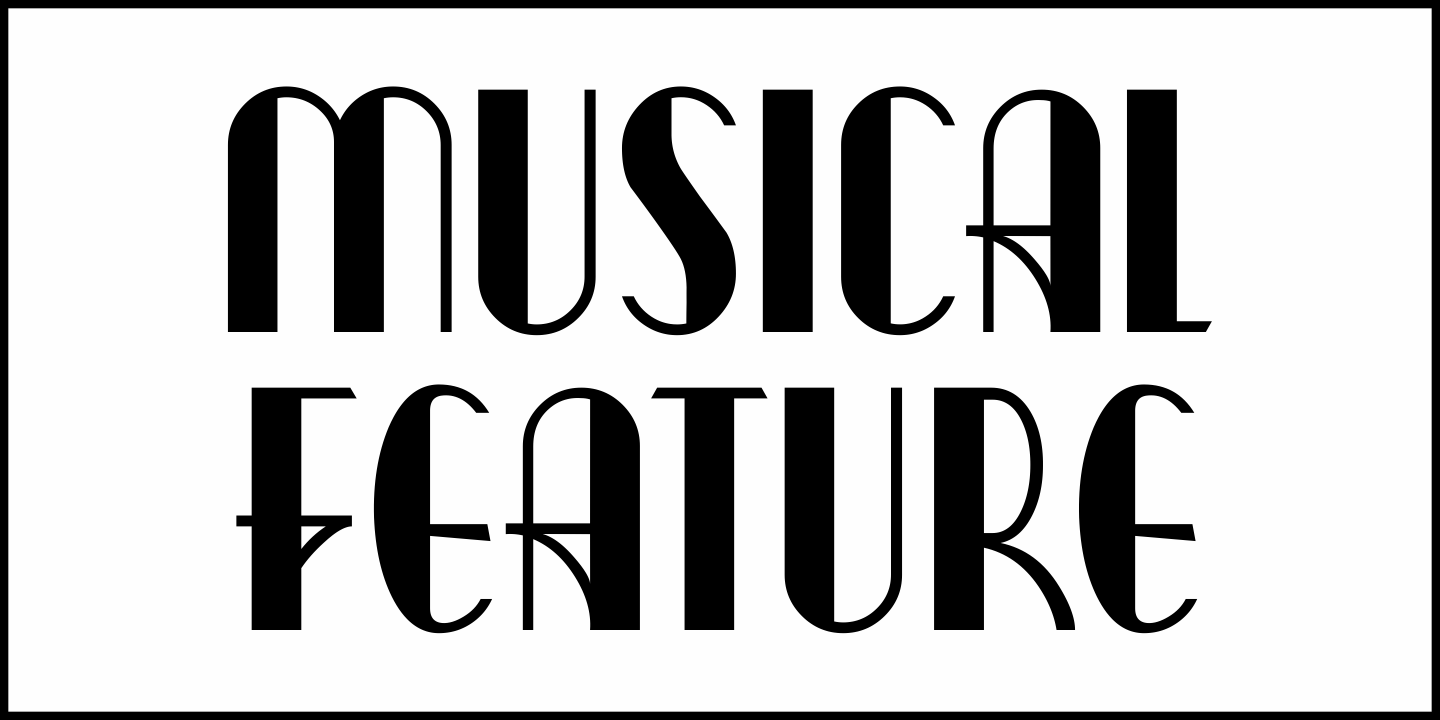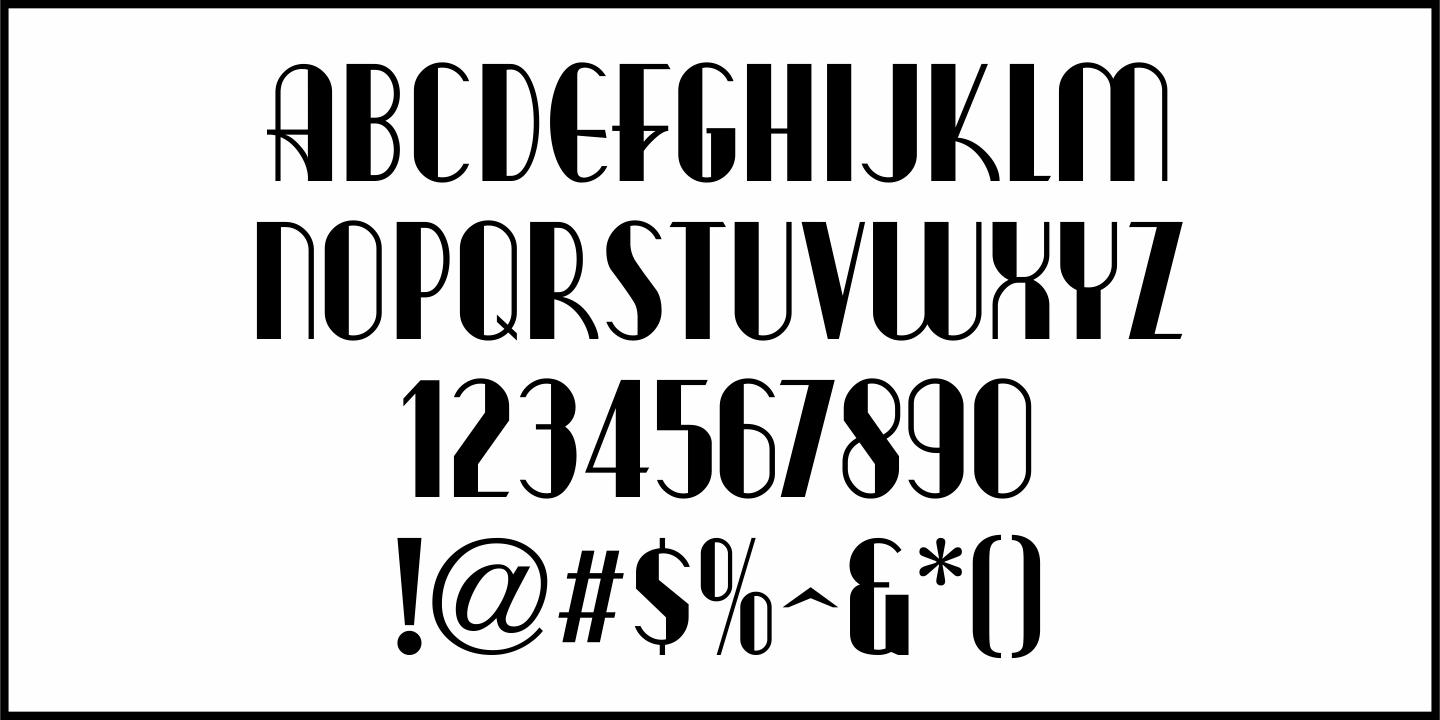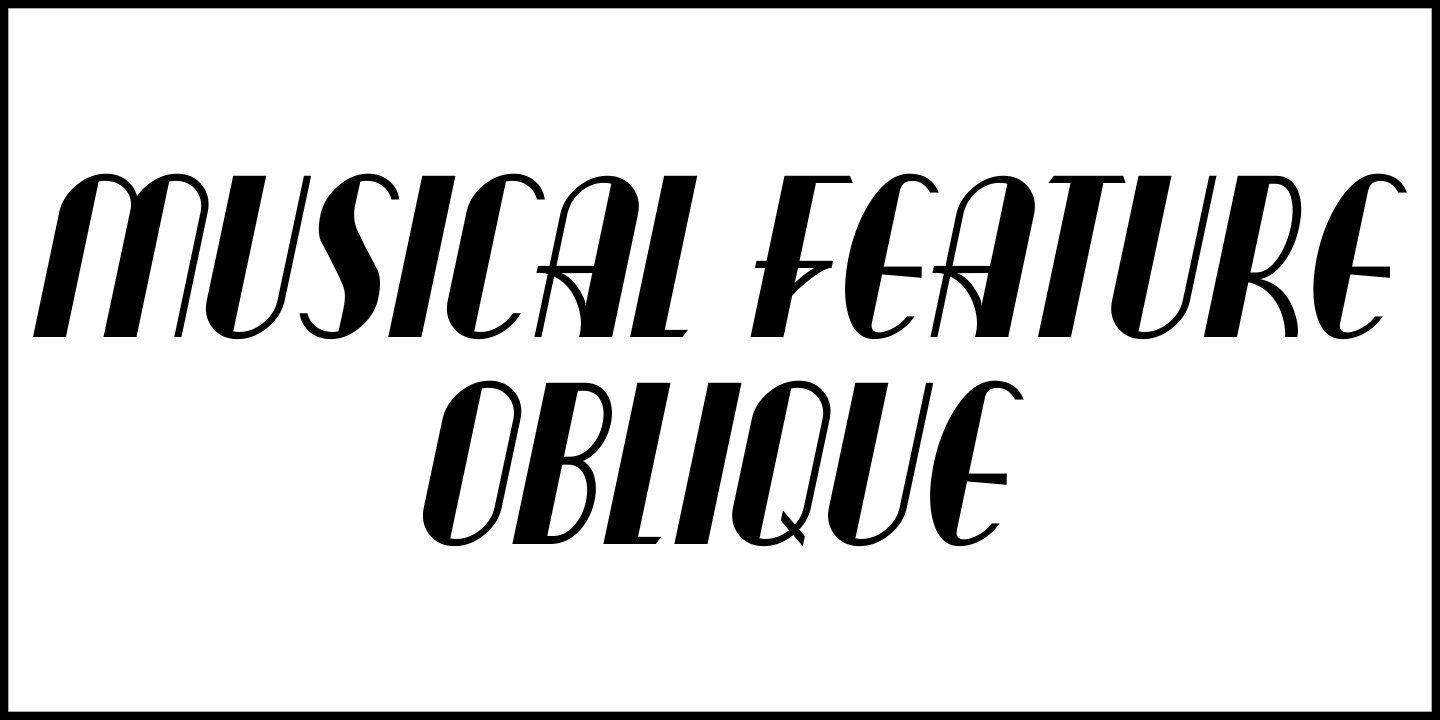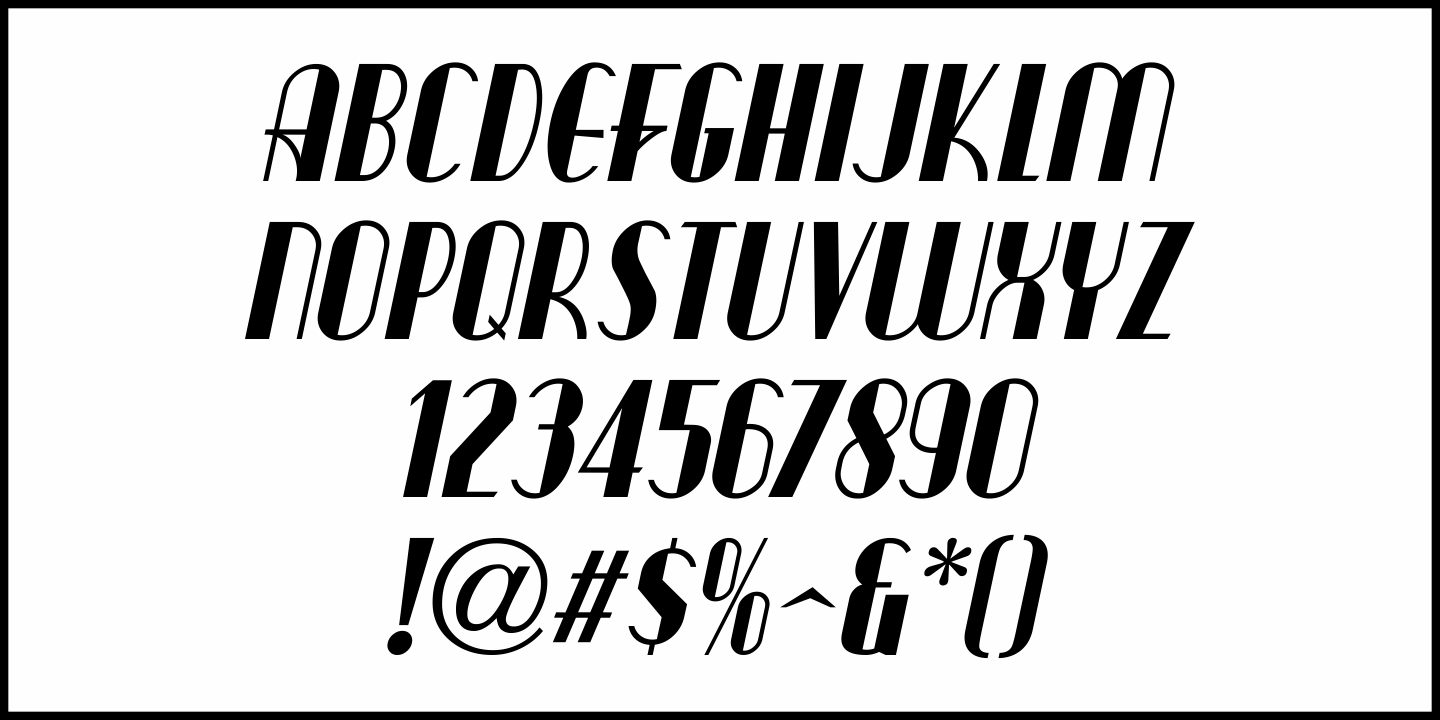
Musical Feature
Inside the November, 1933 issue of Movie Mirror magazine was an ad for the James Cagney musical feature "Footlight Parade". The hand lettering was done in a thick and thin Art Deco sans design - one of many similar lettering styles that popularized the "streamlined" look of the 1930s and 1940s.
This is now available as Musical Feature JNL, in both regular and oblique versions.